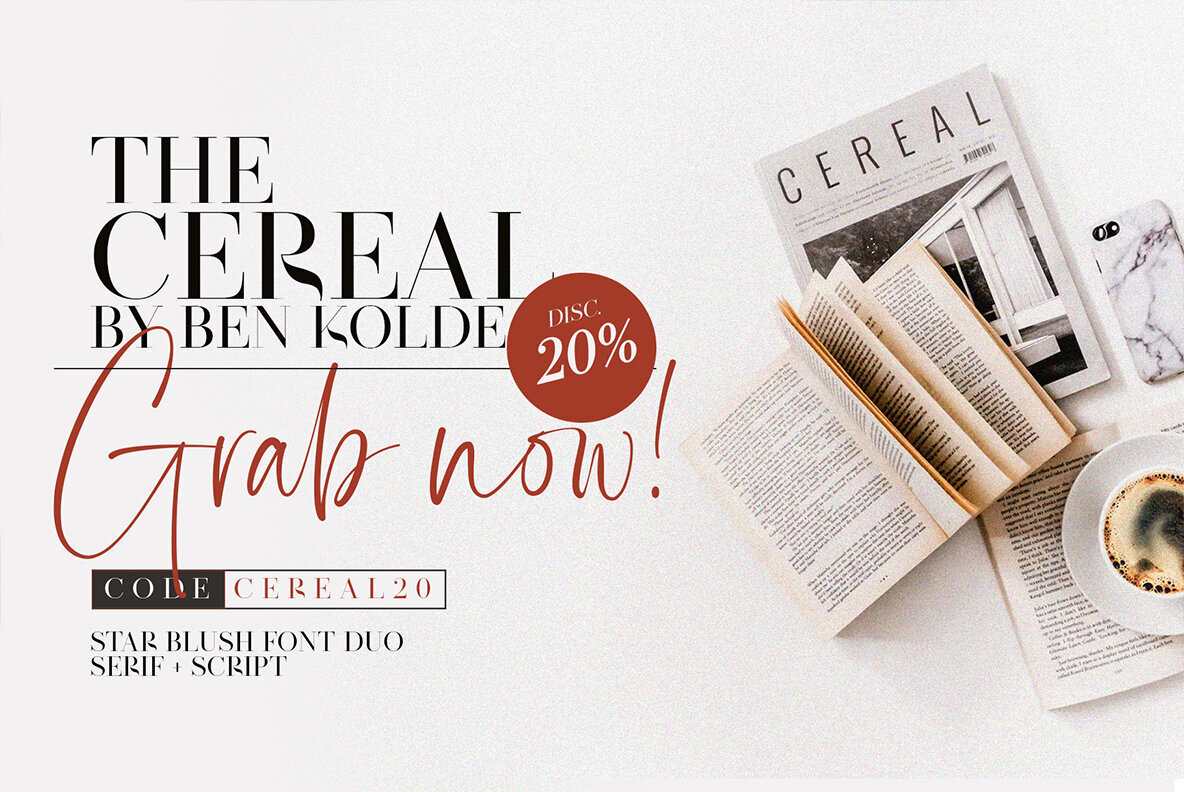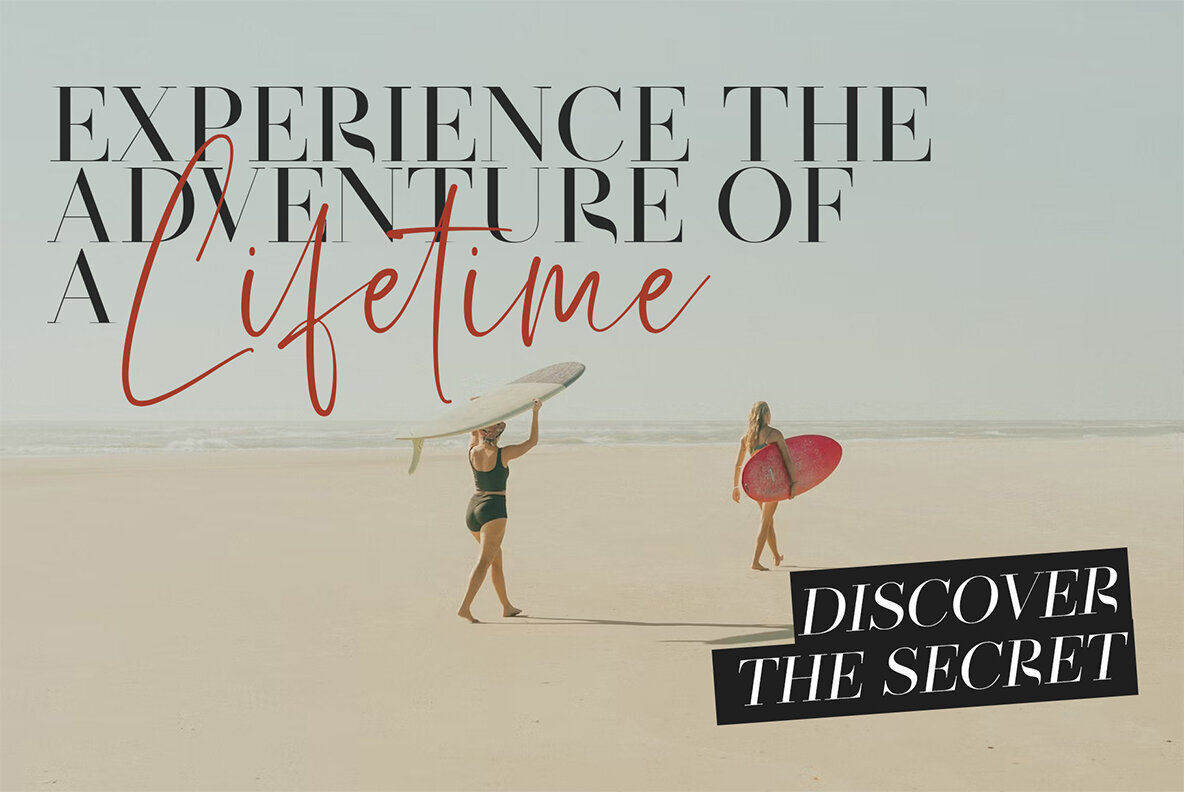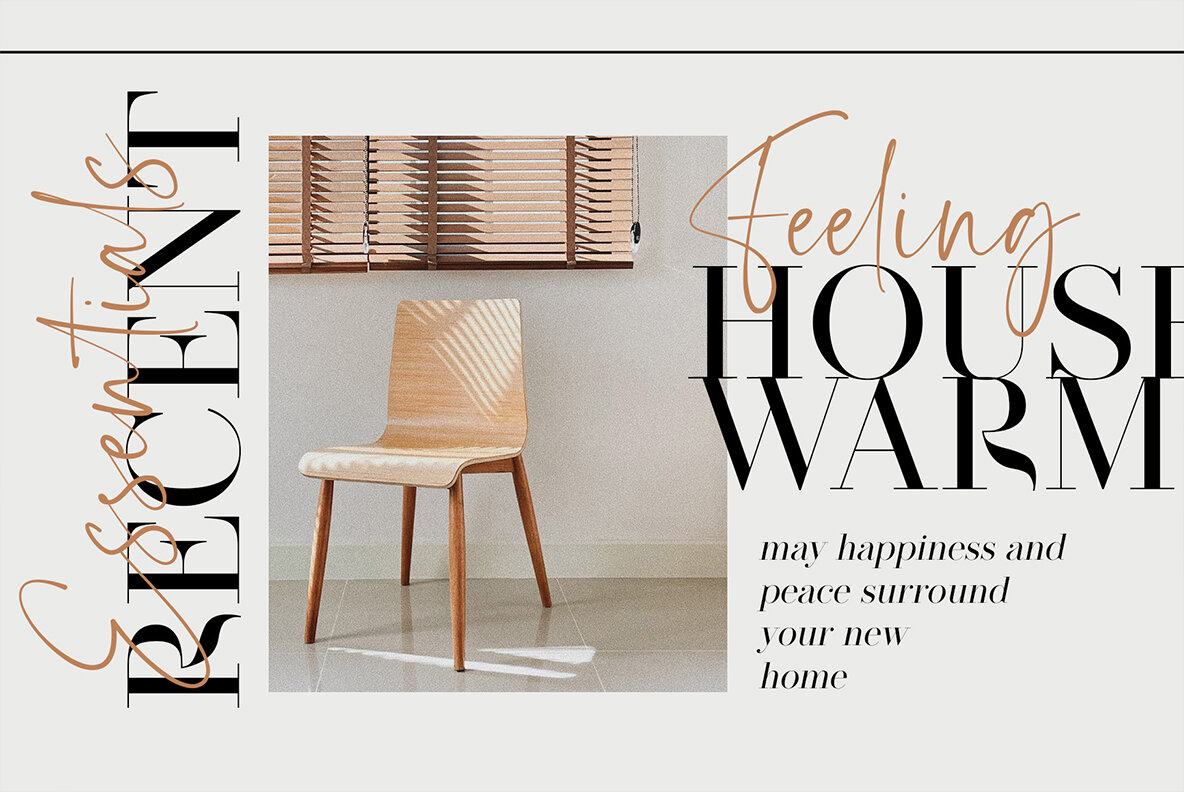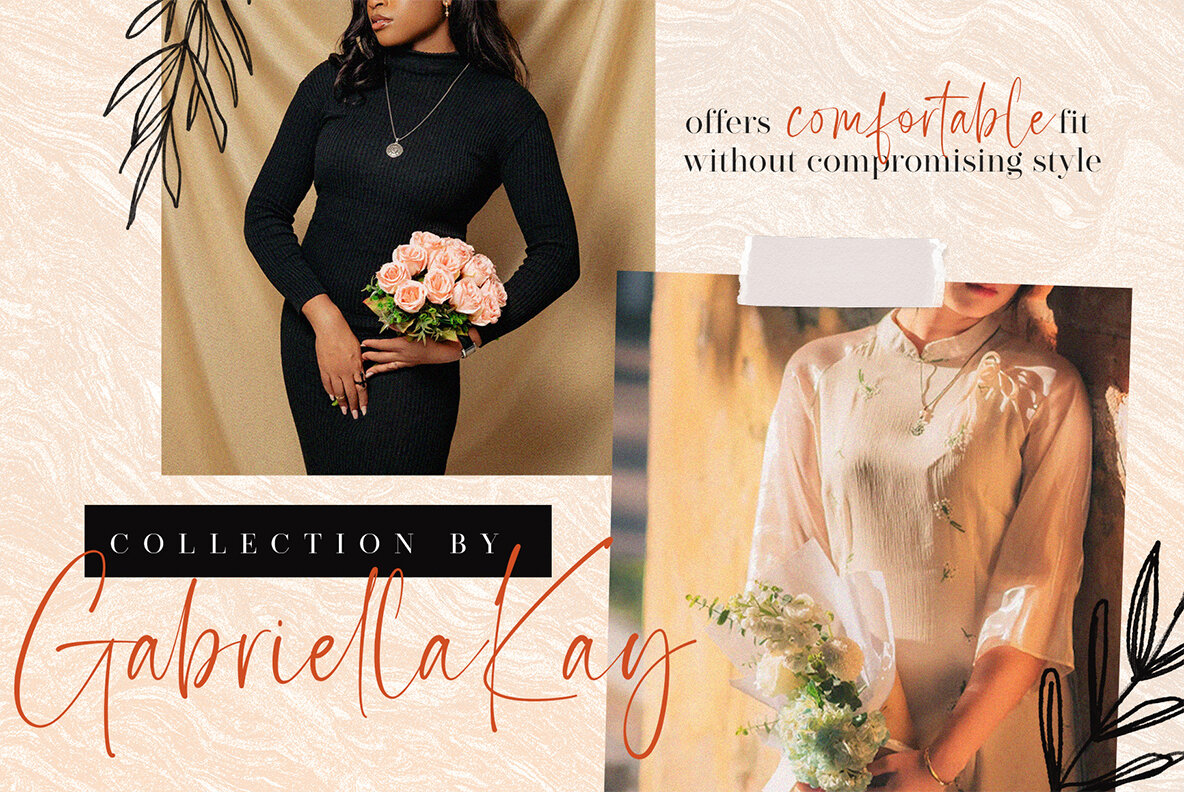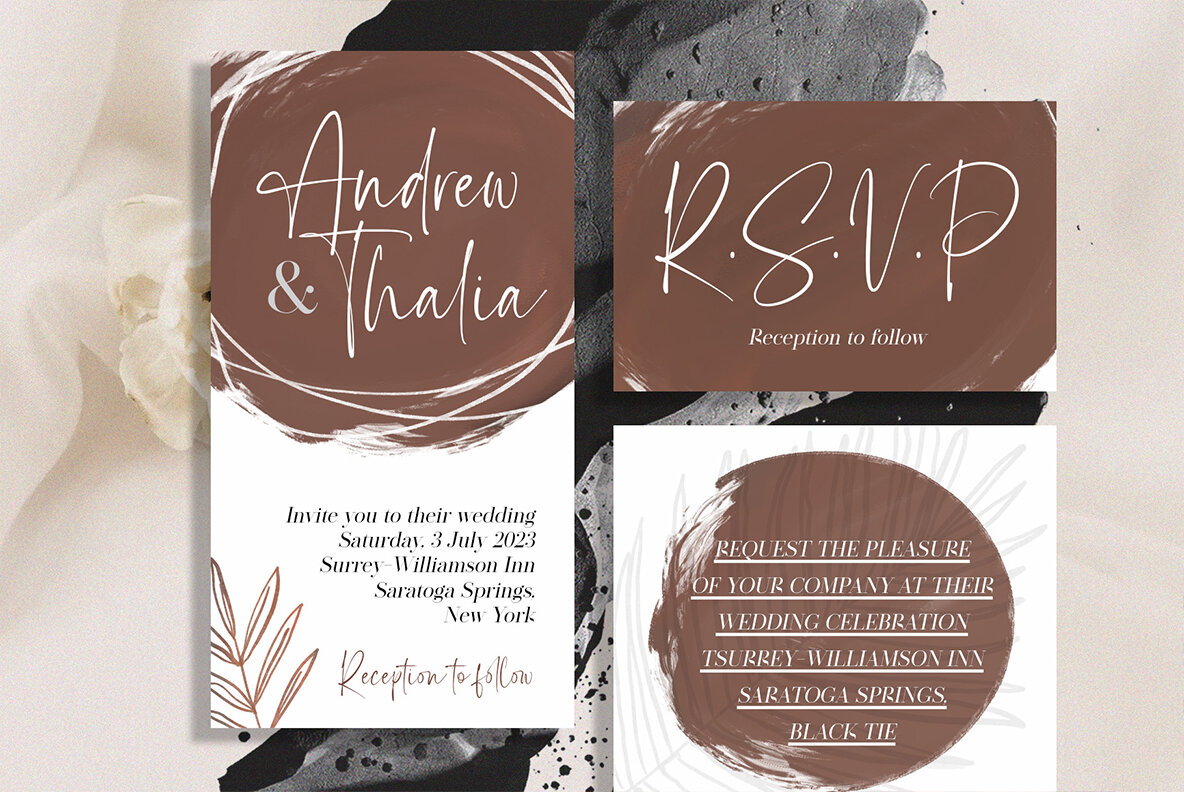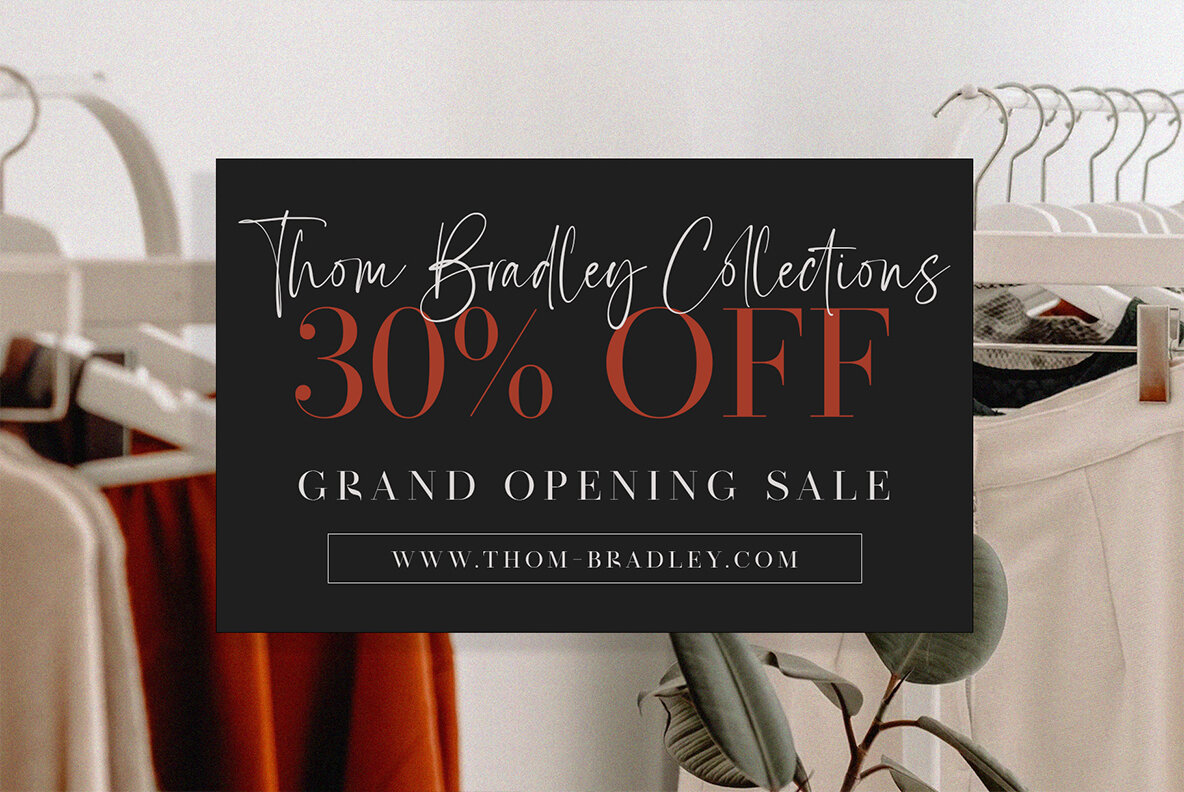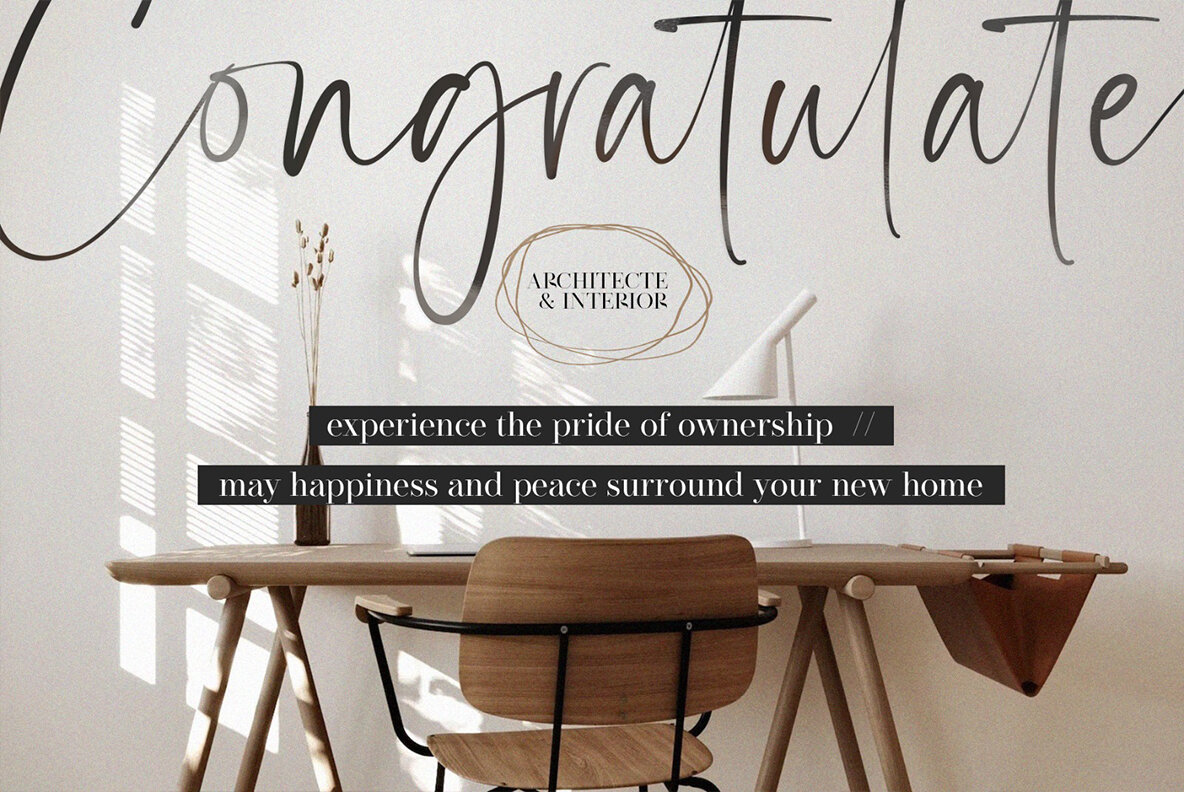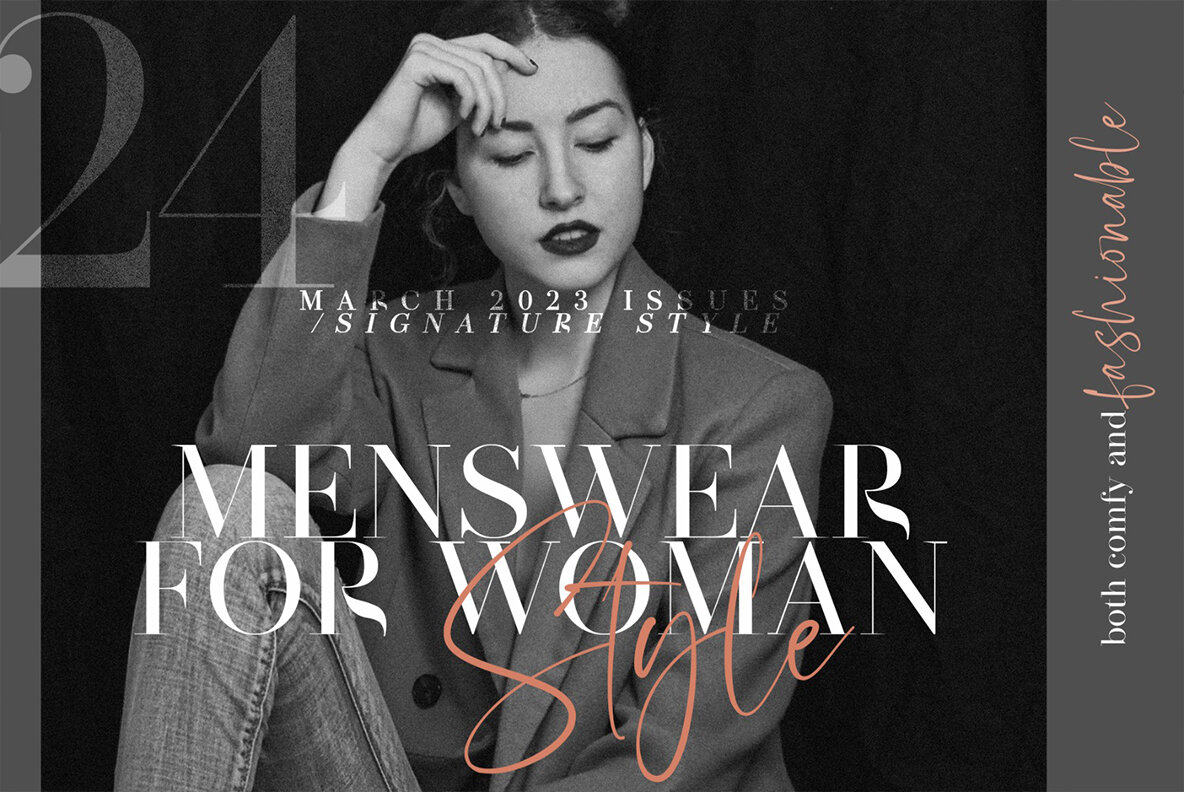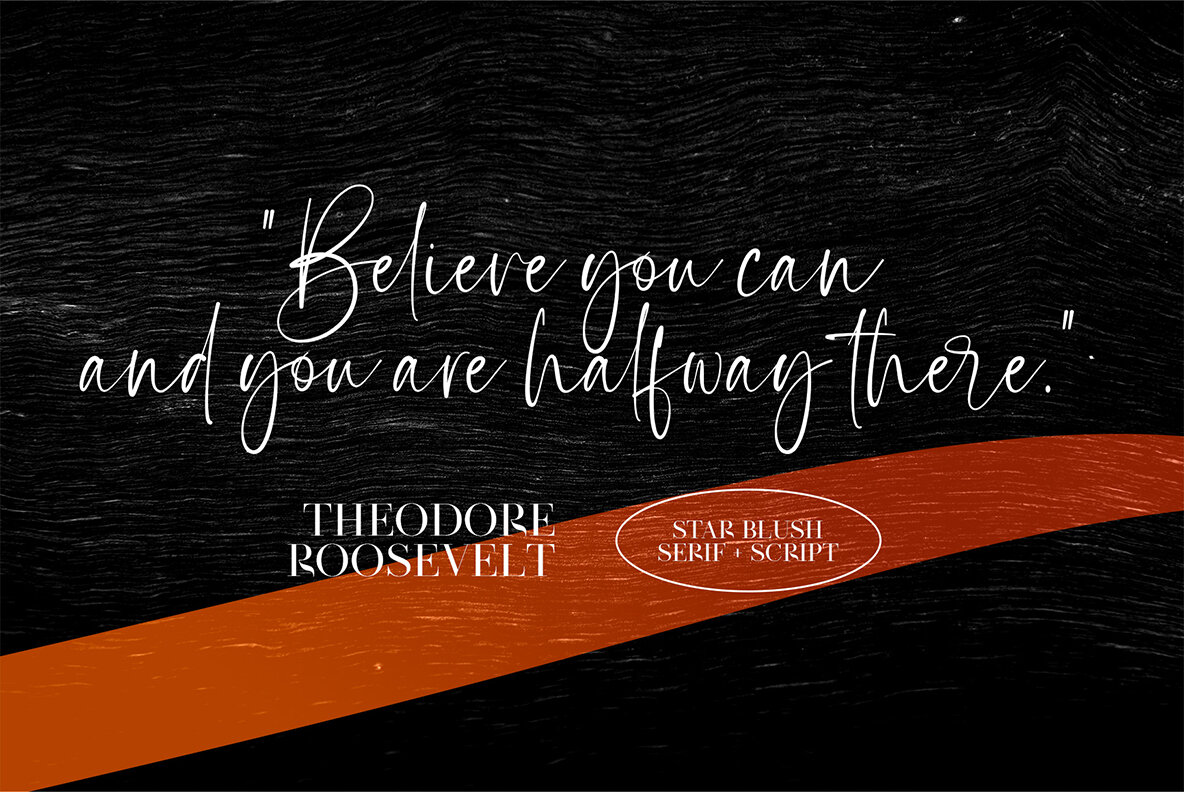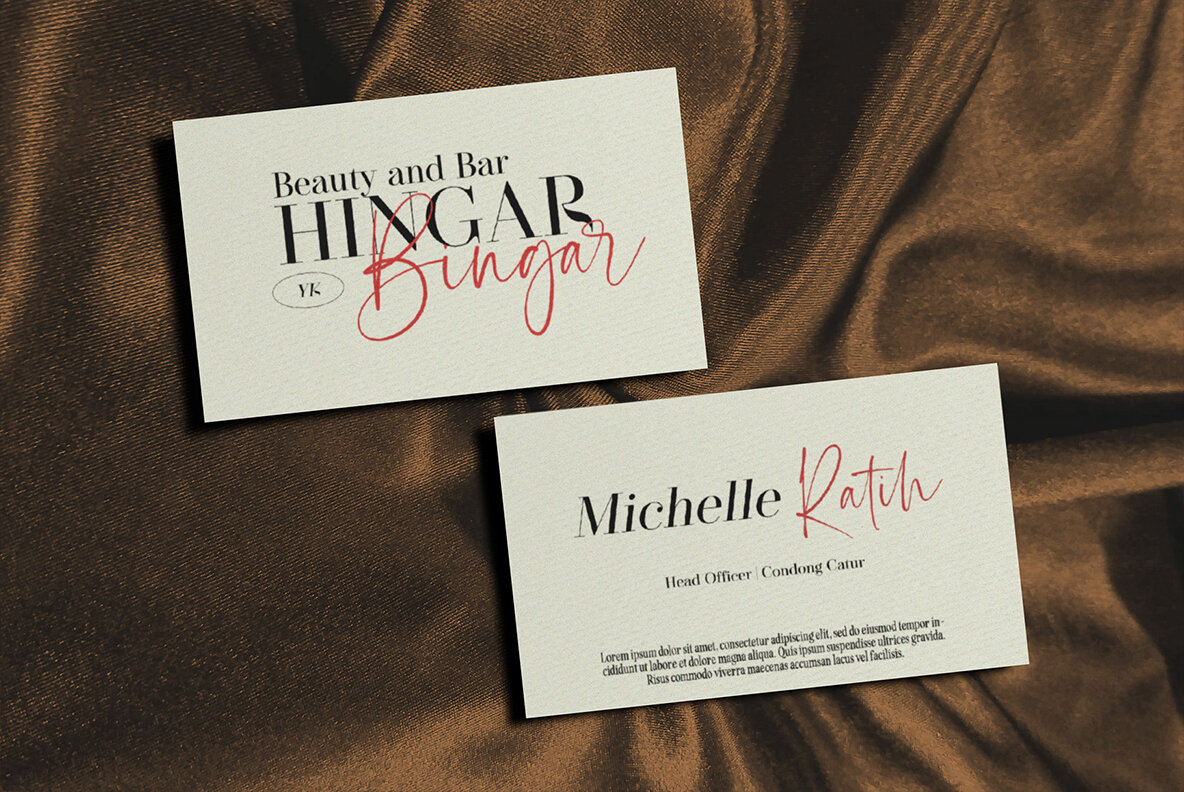
Star Blush Font
Star Blush offers a beautiful typography experience with its expertly crafted and balanced set of elegant serif and realistic script typefaces. Star Blush Serif is an all-caps serif font featuring uppercase letters, all punctuation, and numerals. It includes styles such as Regular, Bold, Italic, and Bold-Italic. Star Blush Script is a thin, realistic, textured handwriting font, drawn with a real fine-tip pen. It includes lowercase, uppercase, all punctuation, numerals, and 80 built-in ligatures.Star Blush: Elegant Serif and Realistic Script Pairing